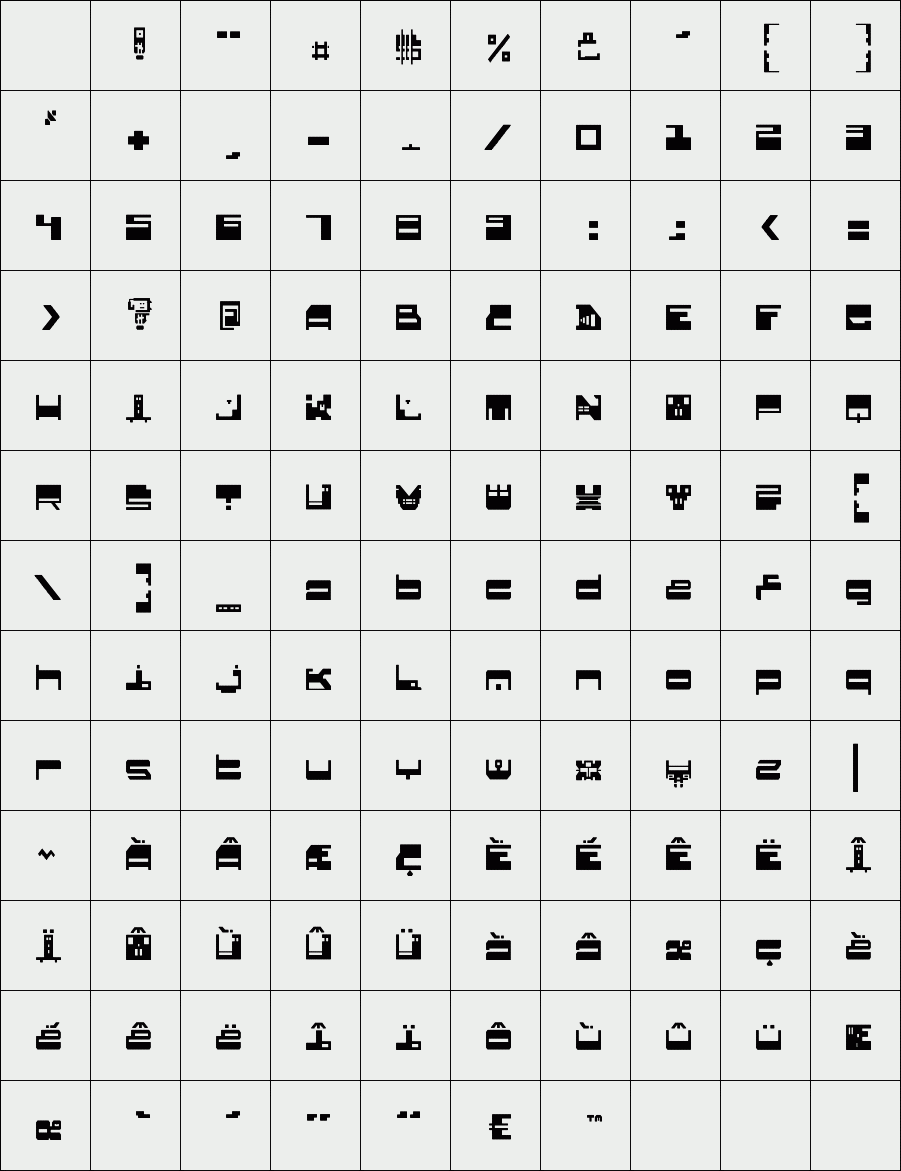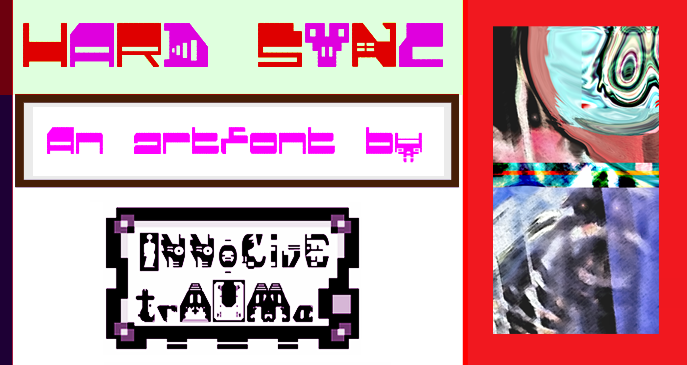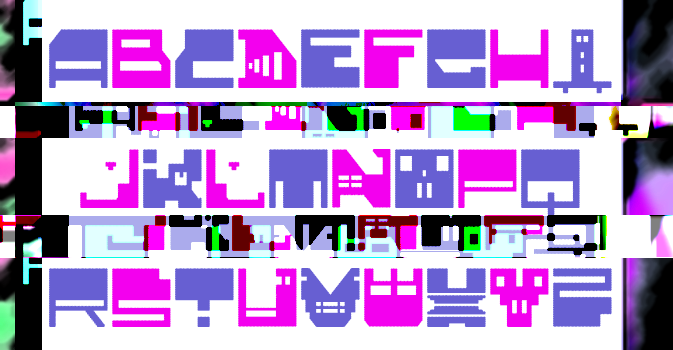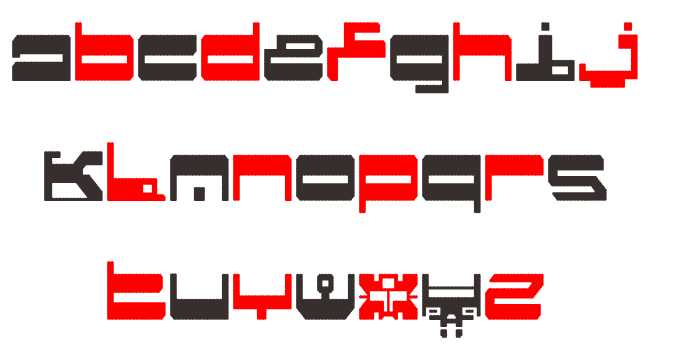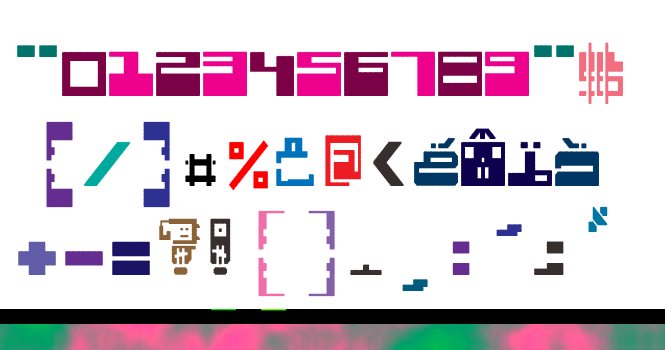
trAUMa 88 / Hard Sync
"Hard Sync", like all the "trAUMa" series, works at the frontier between Art & Type Design, Figuration & Abstraction, each font is a comprehensive world in which every glyph is a "living" entity. But put together they can produce your messages in the most accurate way.